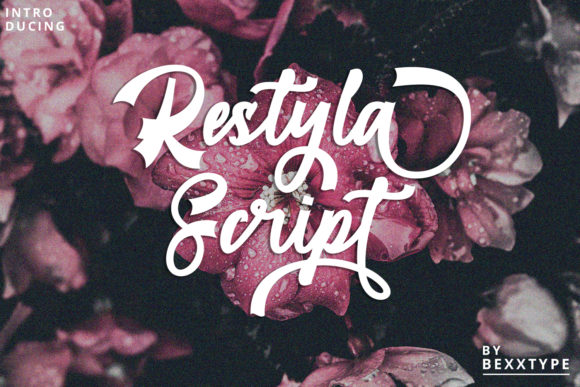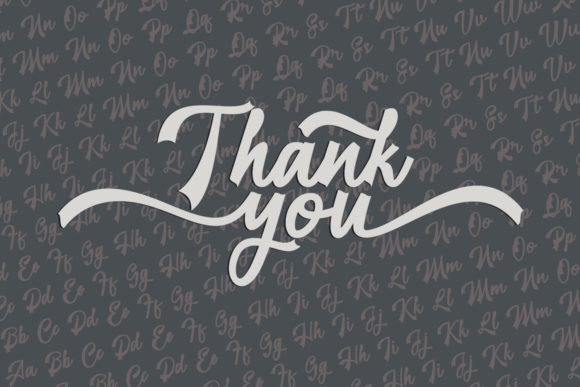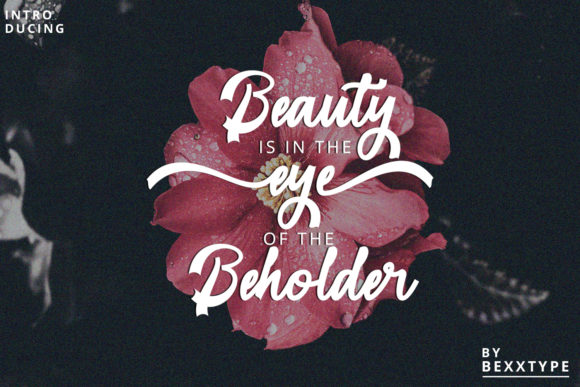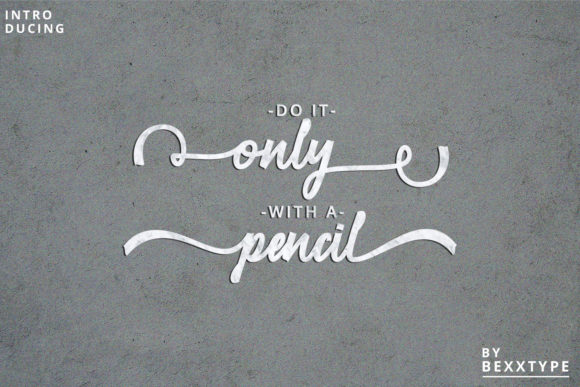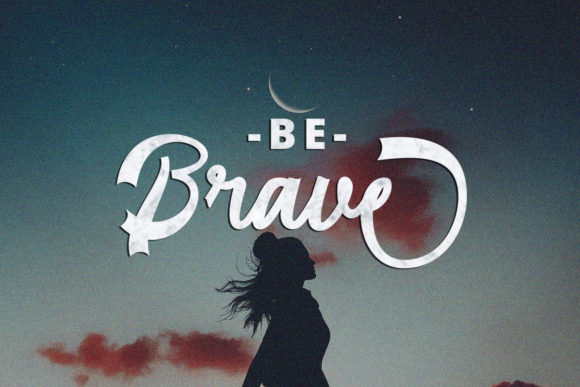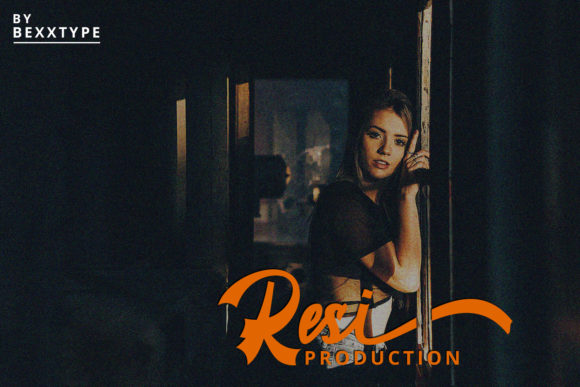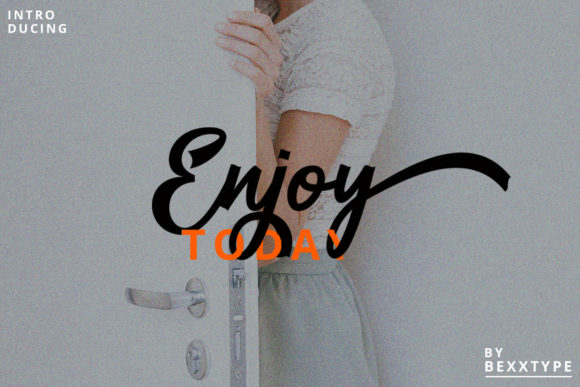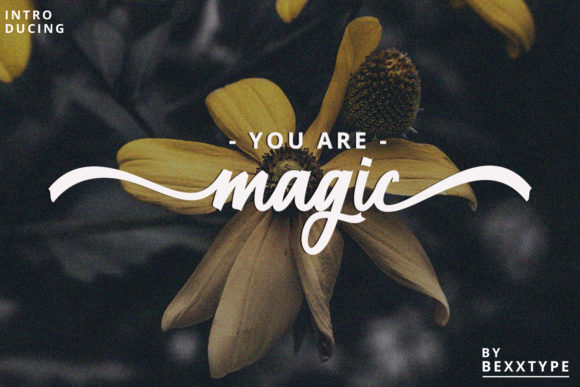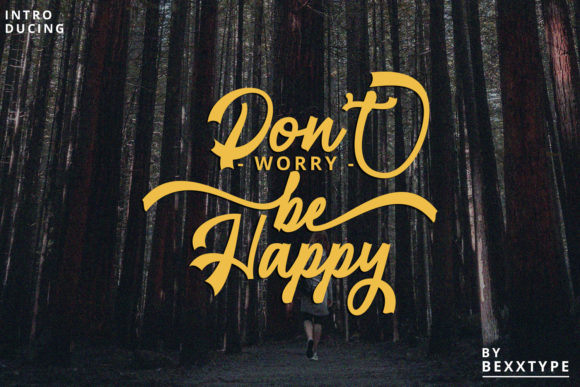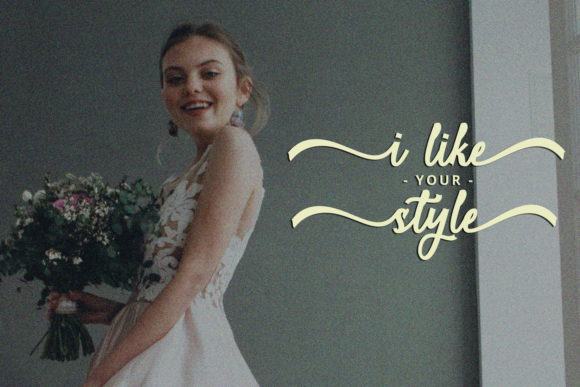
HomeScript FontsRestyla Script Font Script Fonts Restyla Script Font FacebookXPinterestWhatsApp Restyla Script Font Poster 2 Restyla Script Font Poster 3 Restyla Script Font Poster 4 Restyla Script Font Poster 5 Restyla Script Font Poster 6 Restyla Script Font Poster 7 Restyla Script Font Poster 8 Restyla Script Font Poster 9 Restyla Script Font Poster 10 About Restyla Script Font Restyla Script is a sweet and simple script with a contemporary vibe. Get inspired by its authentic charm! DOWNLOAD ON CREATIVE FABRICAThis font is sold and delivered by Creative Fabrica. Font Canyon may earn a commission if you buy through this link. People also explored Wild Pears – Rustic Script Font Pool Ball Font Popsicle Font Bottoms Up Love Duo Font Cartame Font Deep Teal Bella Canvas 3001 Tee Mockup Quaro Font Romilly Font Dagoand Font 333 0 TagsRestyla Script Font Previous articleSheila Script FontNext articleBlancha Font LEAVE A REPLY Cancel reply Comment: Please enter your comment! Name:* Please enter your name here Email:* You have entered an incorrect email address! Please enter your email address here Website: Save my name, email, and website in this browser for the next time I comment. Personal Use Free Turpentine Personal Use Free Read more about this font Imelda Personal Use Free Read more about this font Boby Personal Use Free Read more about this font 1980 Portable Personal Use Free Read more about this font BLOG Using Fonts in Digital Marketing: Tips to Strengthen Your Brand Identity In the realm of digital marketing, every visual element plays a crucial role in shaping a brand's identity, and fonts are no exception. The... Best Fonts for T-Shirt Design – Top 2025 Picks To increase your work productivity, choose the most readable fonts. Top 10 Handwritten Fonts That Elevate Your Designs